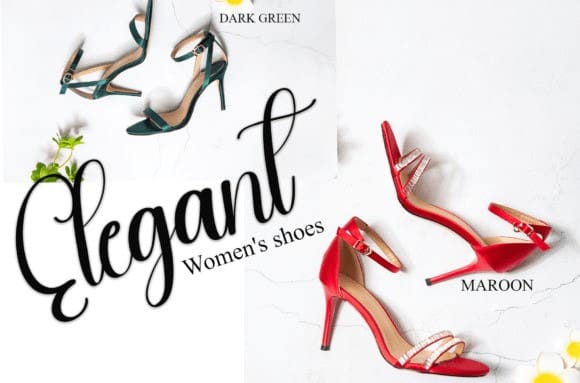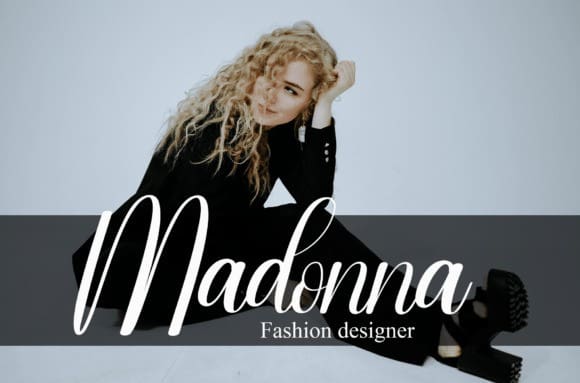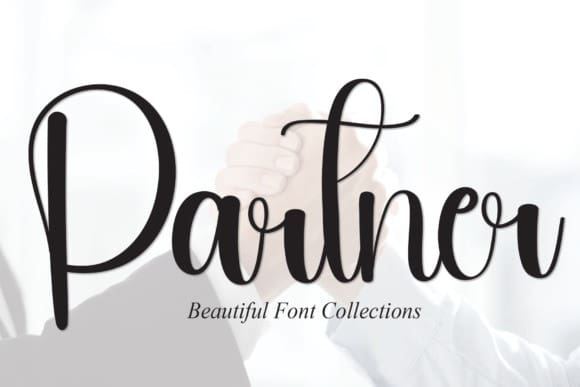
Partner Beautiful Font
Partner Beautiful Font is a sweet and friendly handwritten font. Fresh and neat, this font is ideal for writing wedding invitations, cards, or any other design that might need a fun touch!